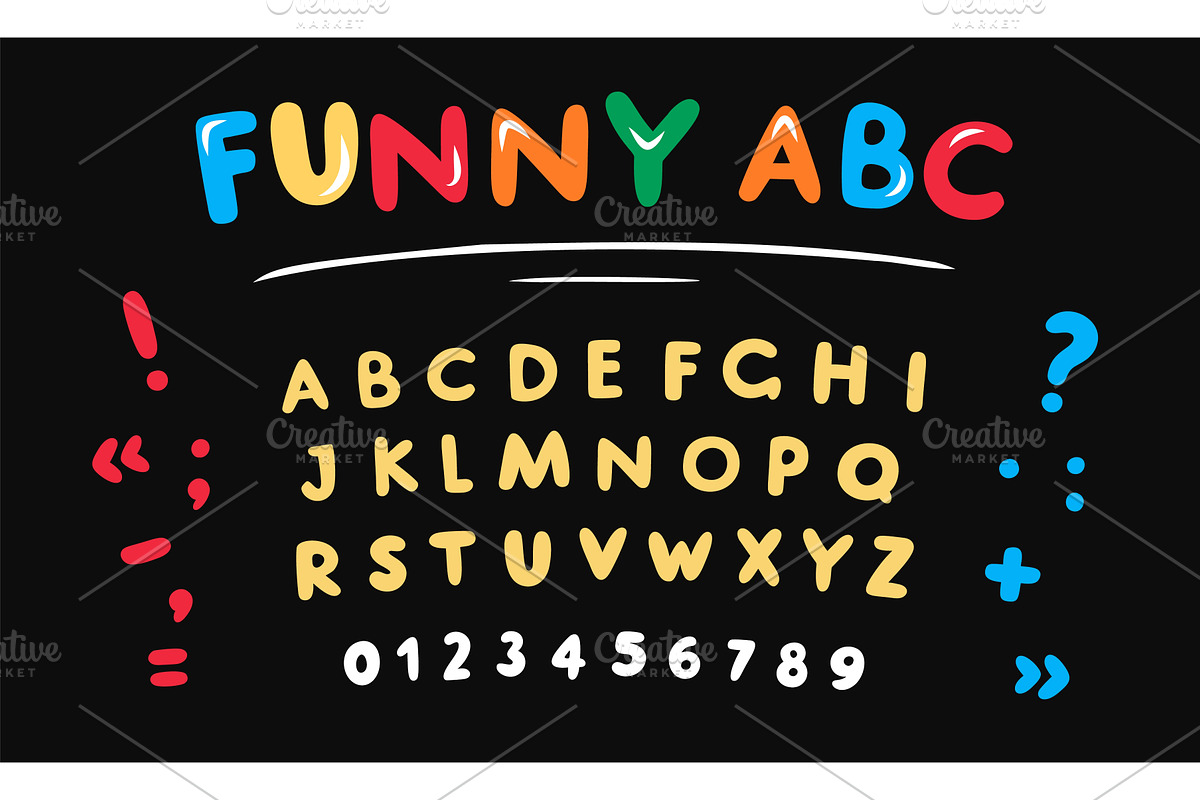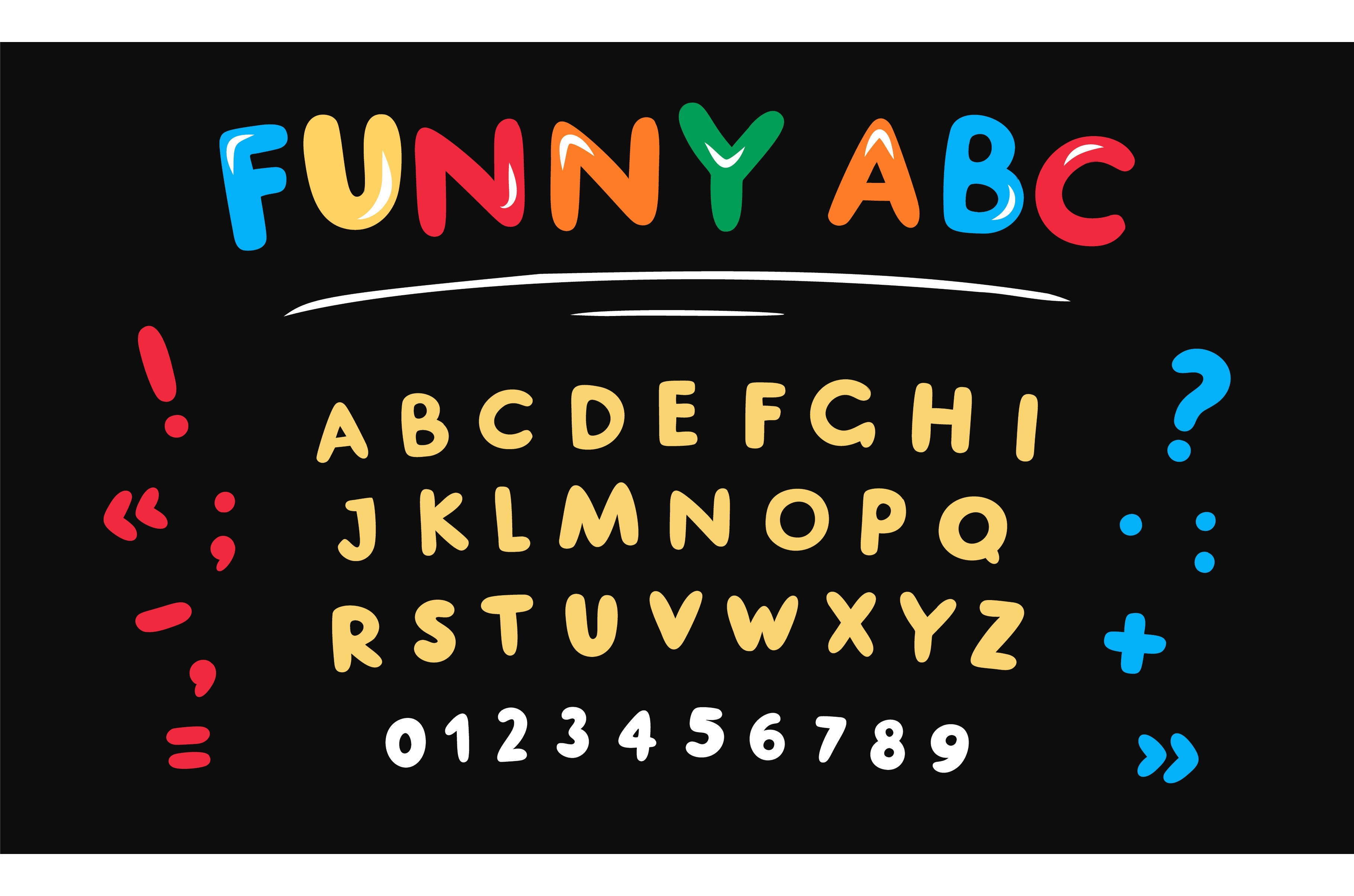
Funky doodle font. Cartoon rounded
Funky doodle font. Cartoon rounded letters, numbers and punctuation marks, color chubby alphabet, kids latin abs signs, funny alphabetical colorful isolated elements, ABC typeface, garish vector set